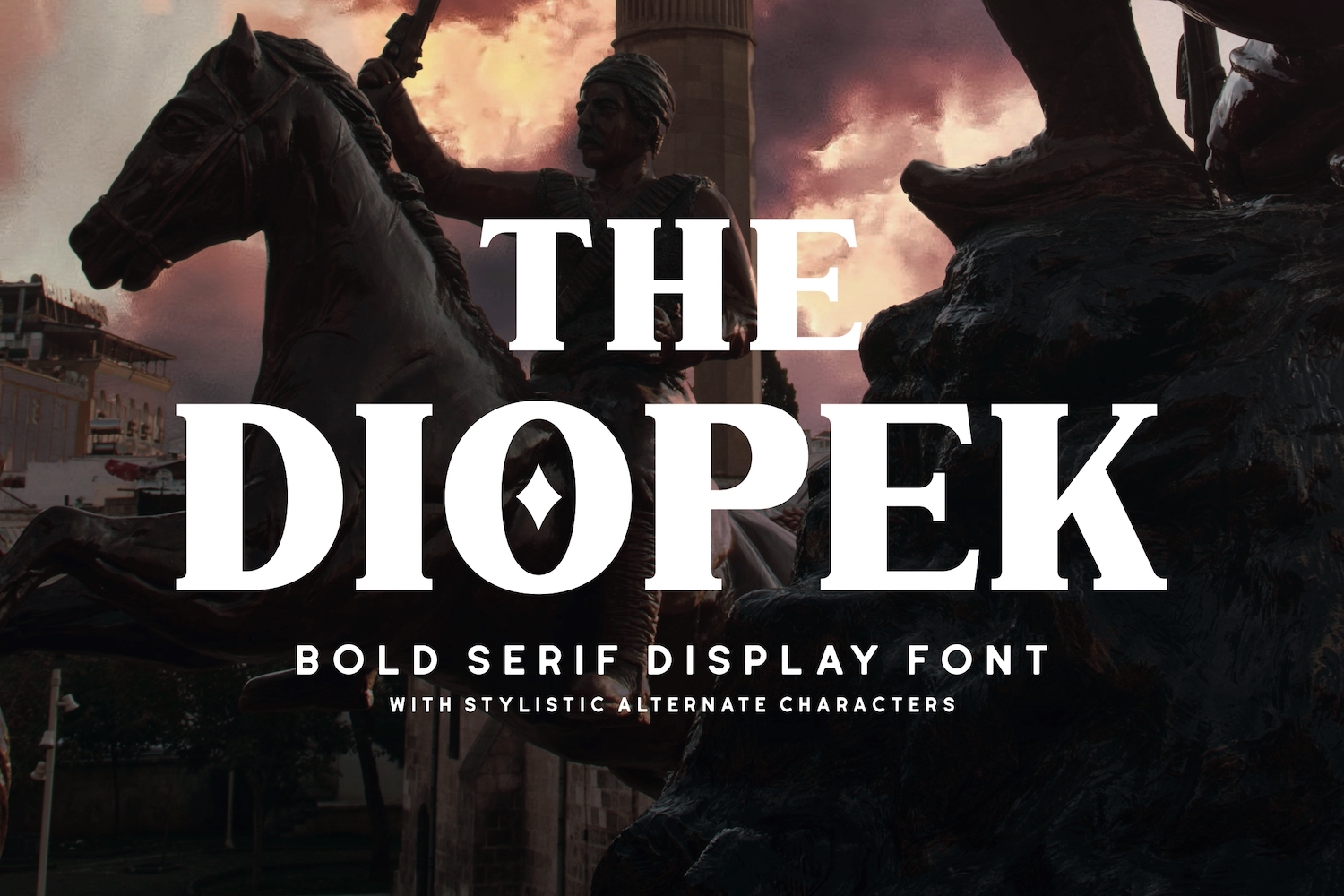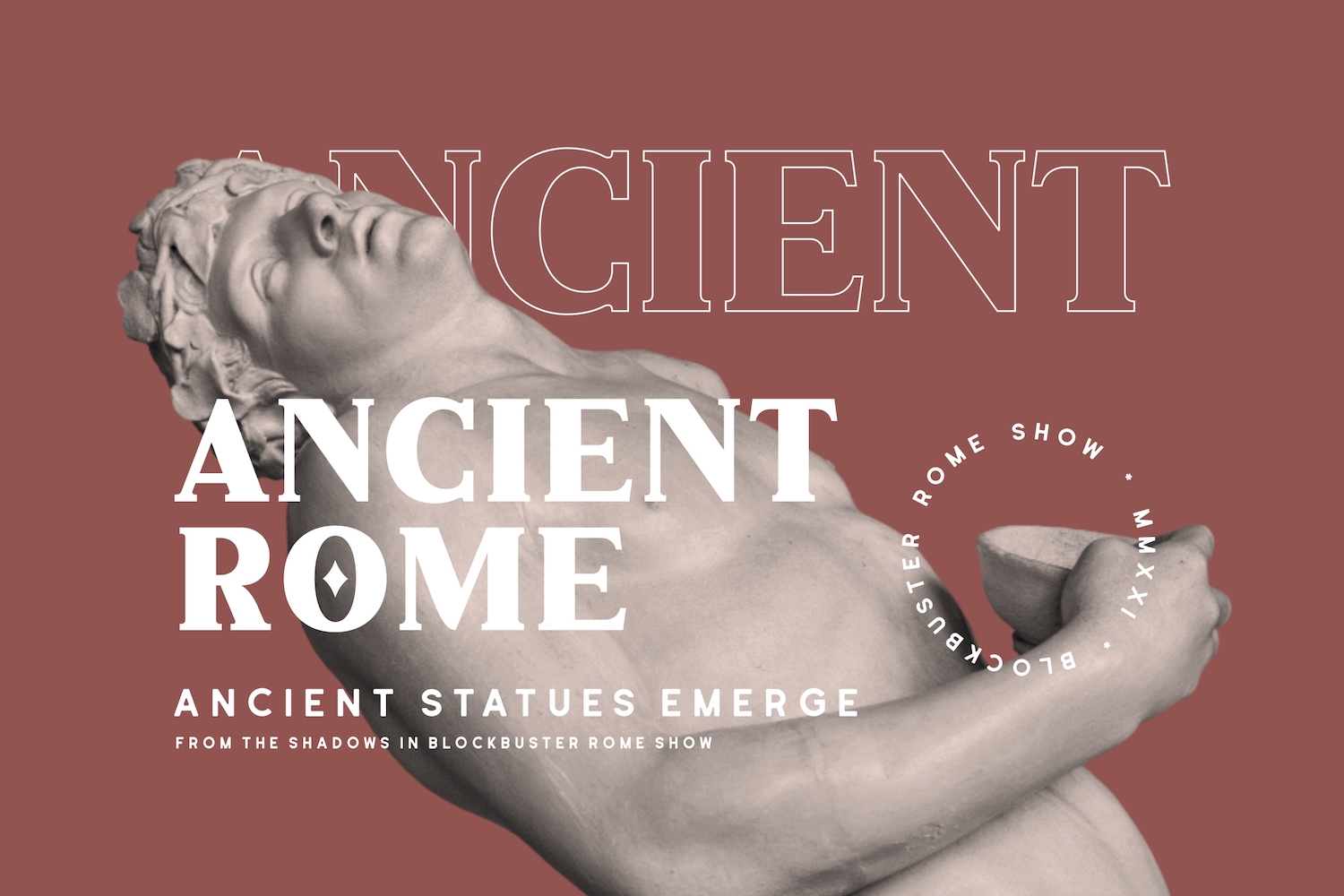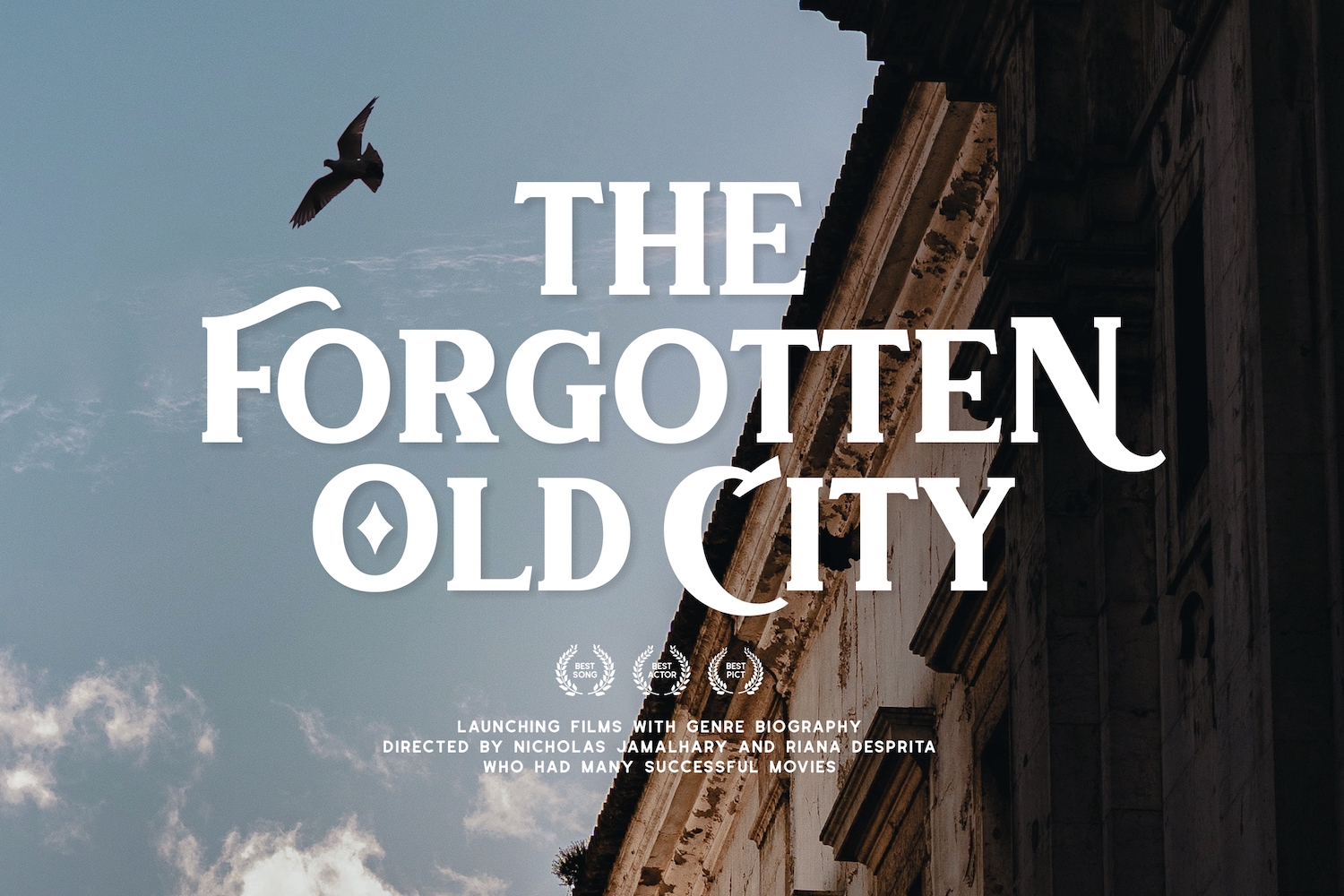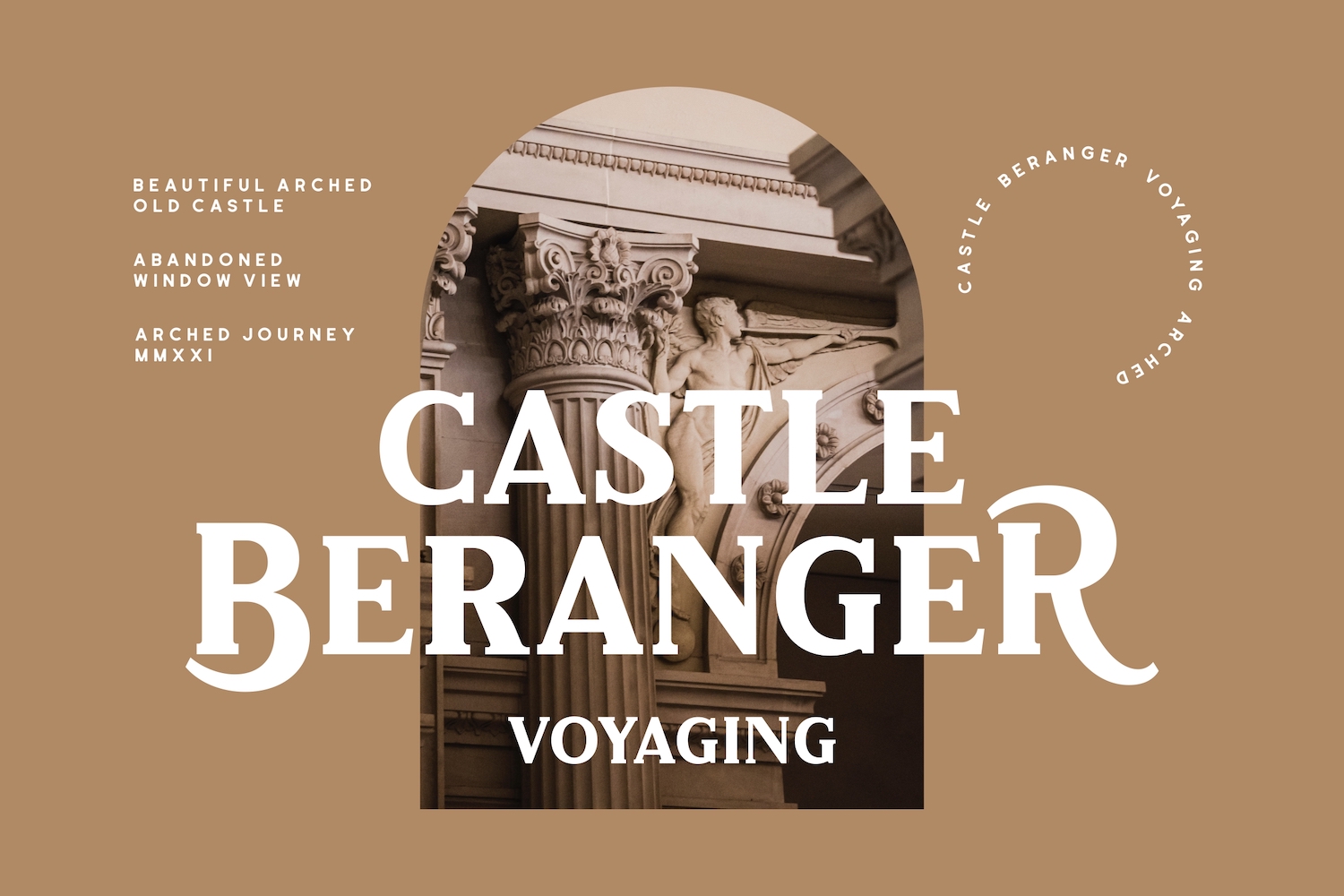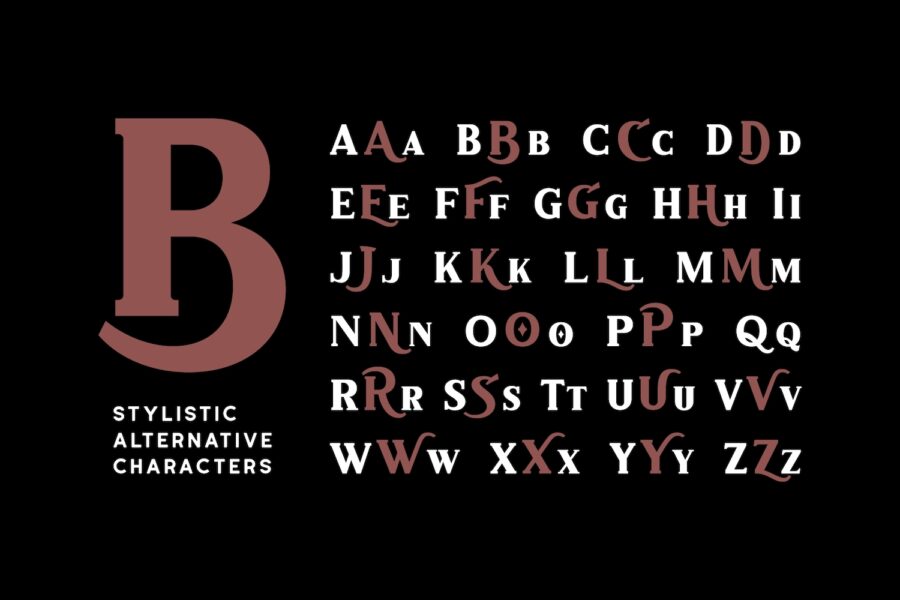
The Diopek is a bold serif display font that exudes power, legacy, and authority. Inspired by monumental Roman architecture and timeless classical forms, this typeface brings a commanding presence to headlines, logos, and editorial designs. With its sharp serifs and solid structure, The Diopek balances heritage aesthetics with strong readability, making it perfect for vintage film posters, museum branding, or luxury packaging.
Equipped with a rich set of stylistic alternates, The Diopek offers designers the freedom to explore visual contrast and elegance in typography. Each character has been crafted with a hint of drama, allowing for dynamic layouts that elevate historical or cinematic concepts. Whether used in print or digital formats, The Diopek adds a regal and timeless character to any design project.